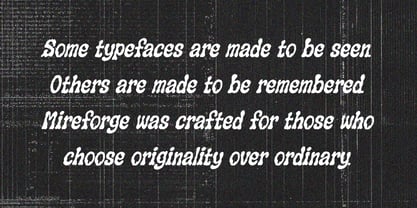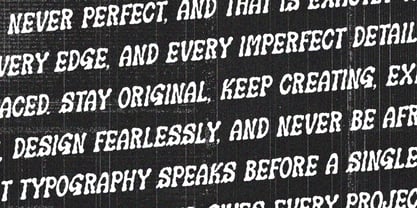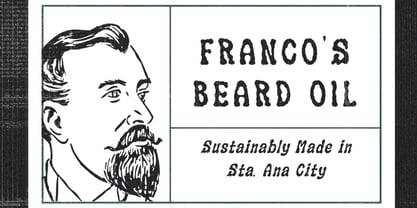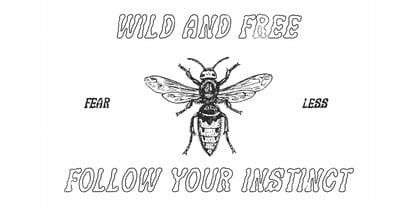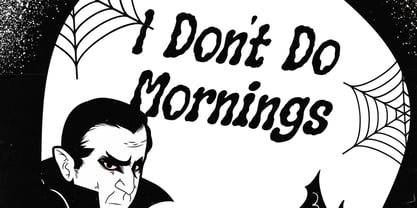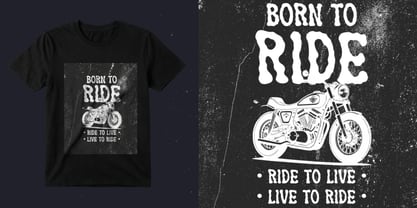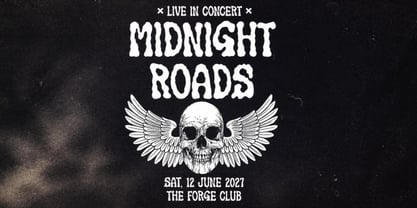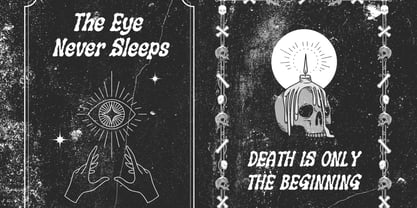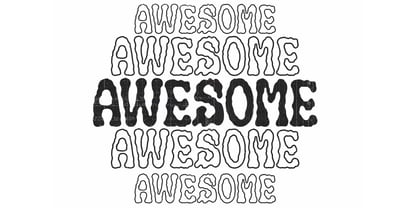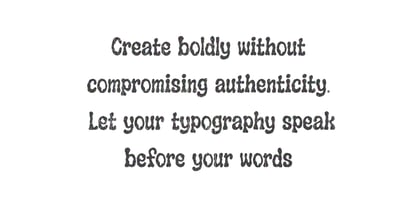
Mireforge
by Wellscript Studio
The Mireforge Font Family was designed by Welianto and published by Wellscript Studio. Mireforge contains 3 styles and family package options. More about this family
Mireforge is a bold organic display font inspired by handmade craftsmanship and vintage aesthetics. Perfect for branding, logos, posters, packaging, apparel, merchandise, and any project that needs a distinctive and authentic look.
4 Styles :
Mireforge Regular
Mireforge Outline
Mireforge Slant
Mireforge Outline Slant
Features:
Uppercase & Lowercase
Numbers & Punctuation
Multilingual Support
Regular & Outline Styles
Mireforge includes multilingual support for: Afrikaans, Albanian, Czech, Danish, Dutch, English, Estonian, Finnish, French, German, Hungarian, Italian, Latvian, Lithuanian, Norwegian, Polish, Portuguese, Slovak, Slovenian, Spanish, and Swedish.
Designers: Welianto Welianto
Foundry: Wellscript Studio